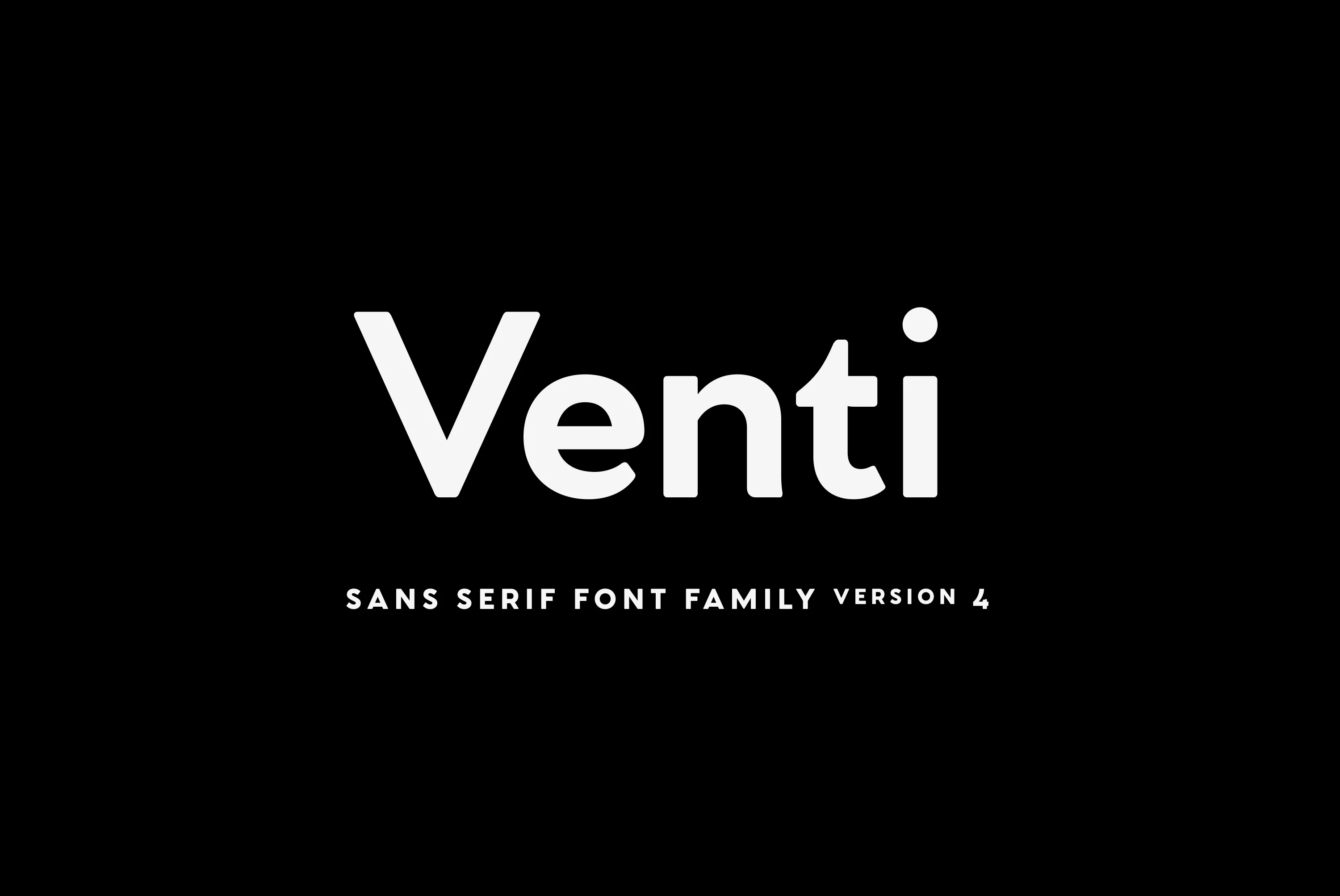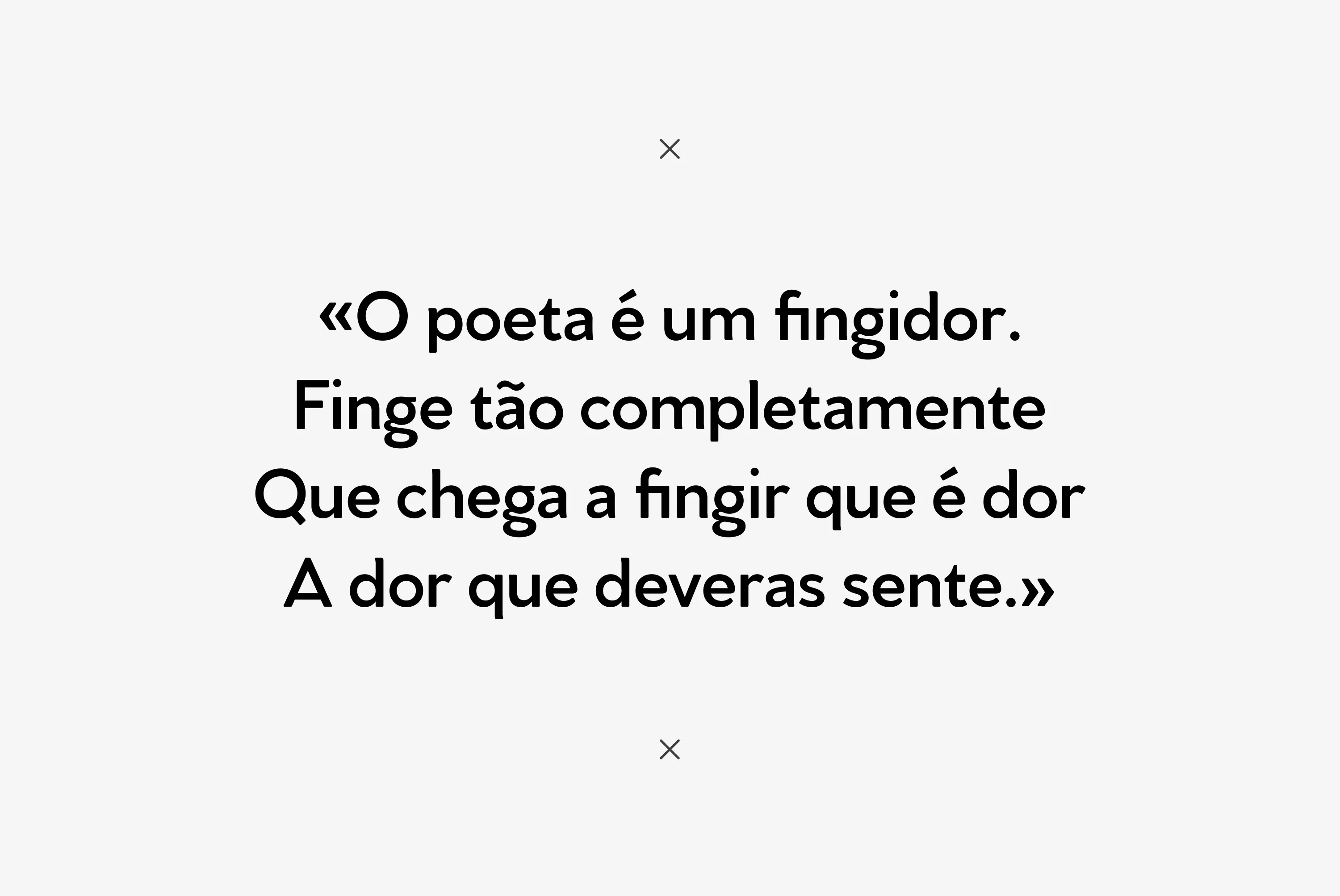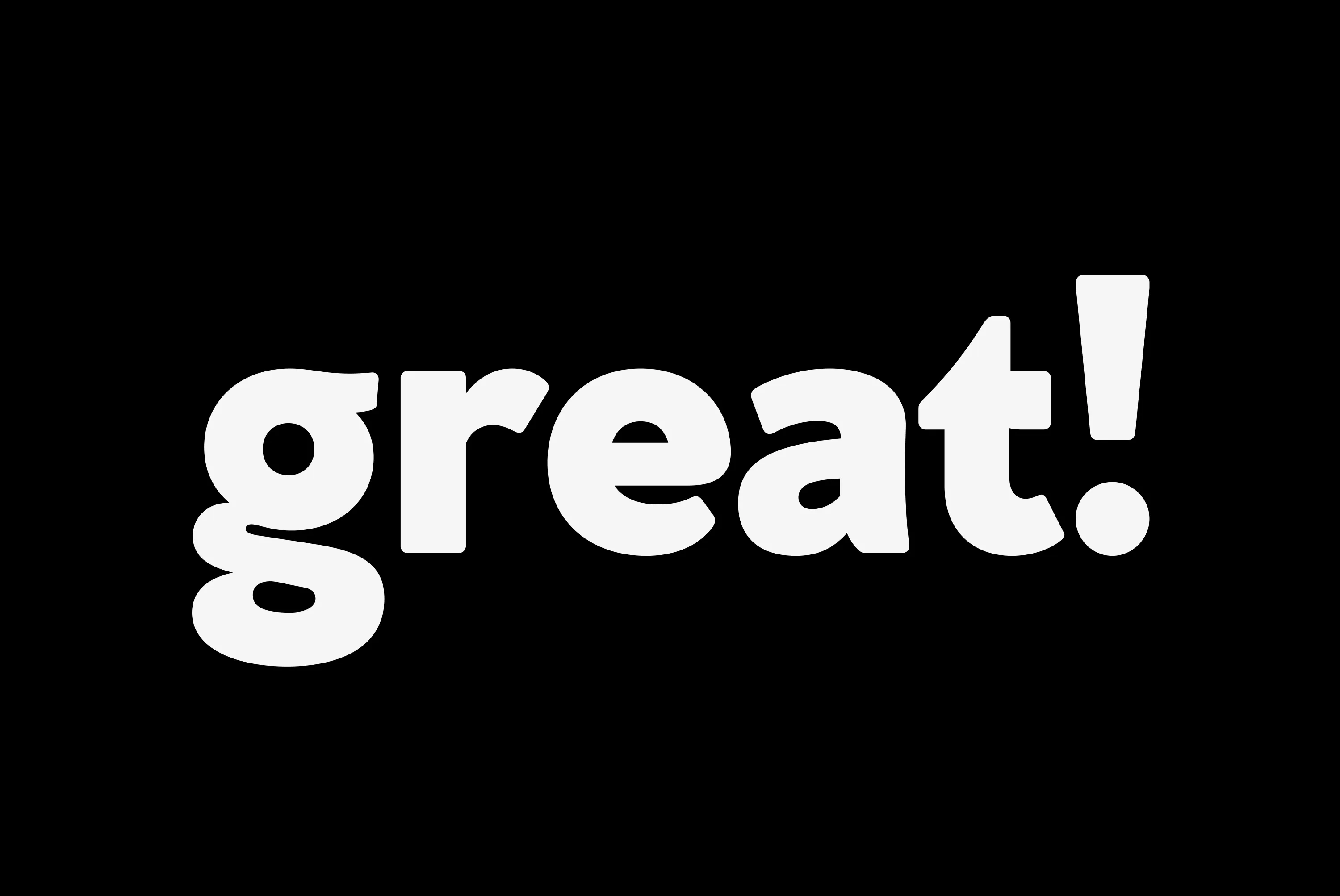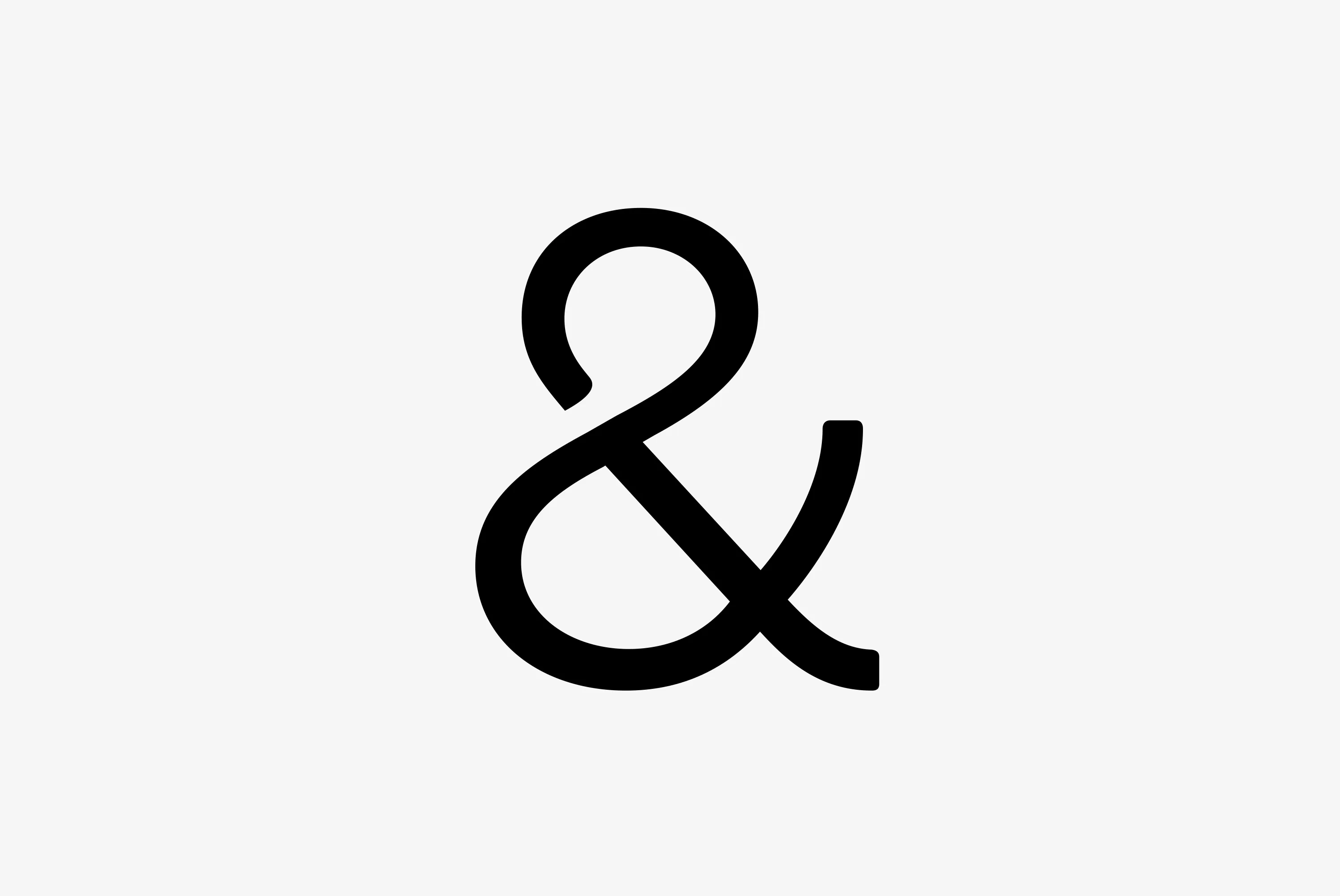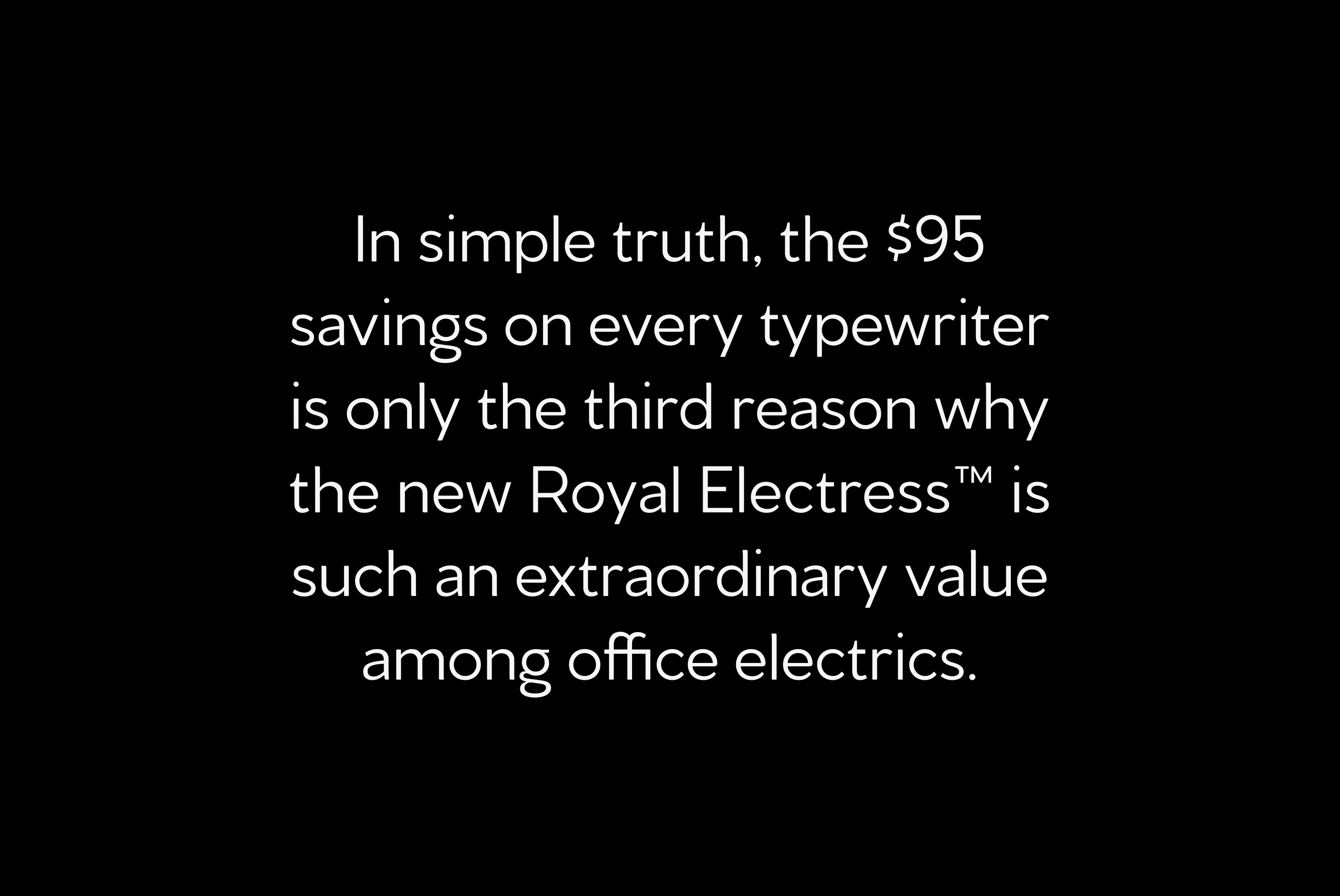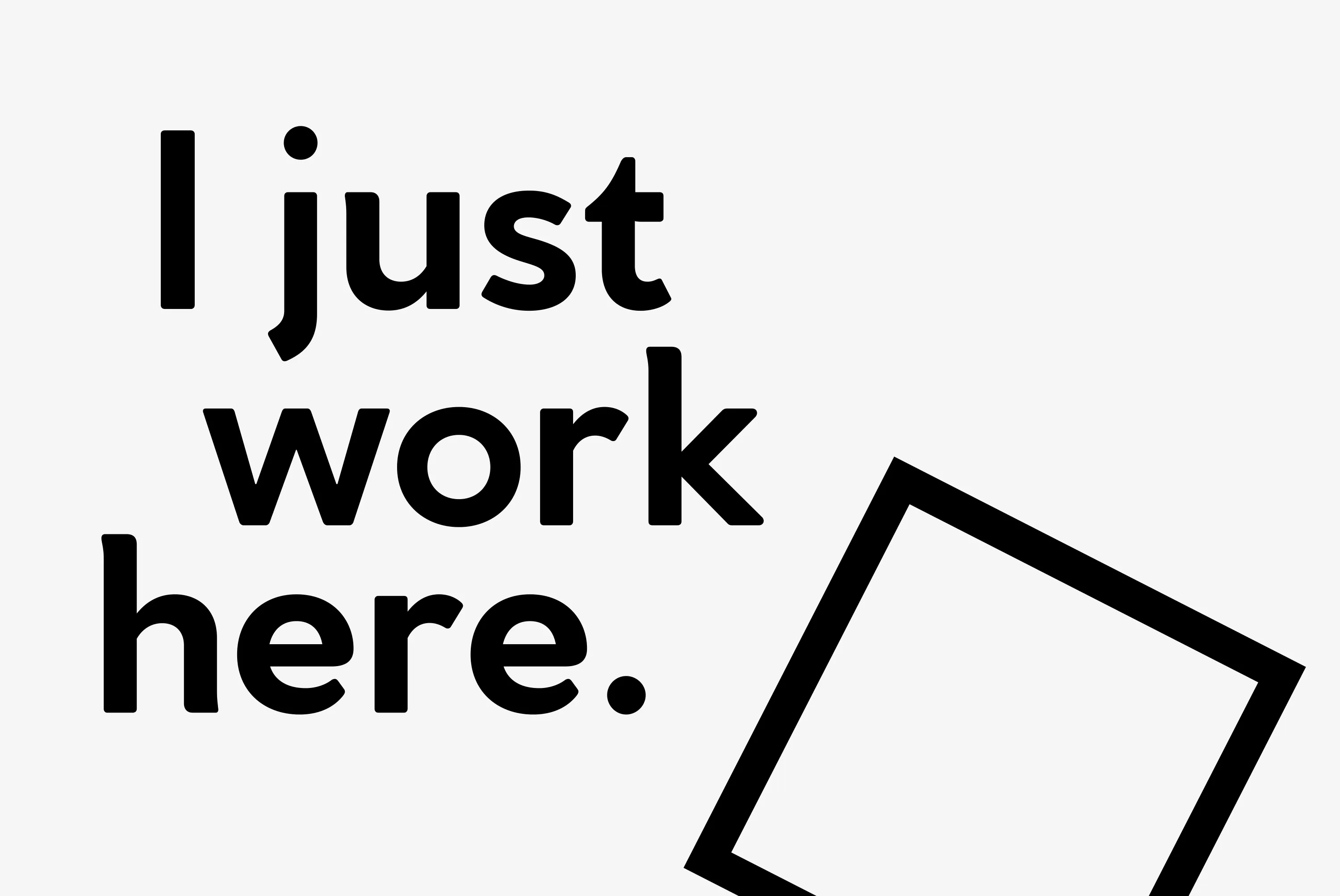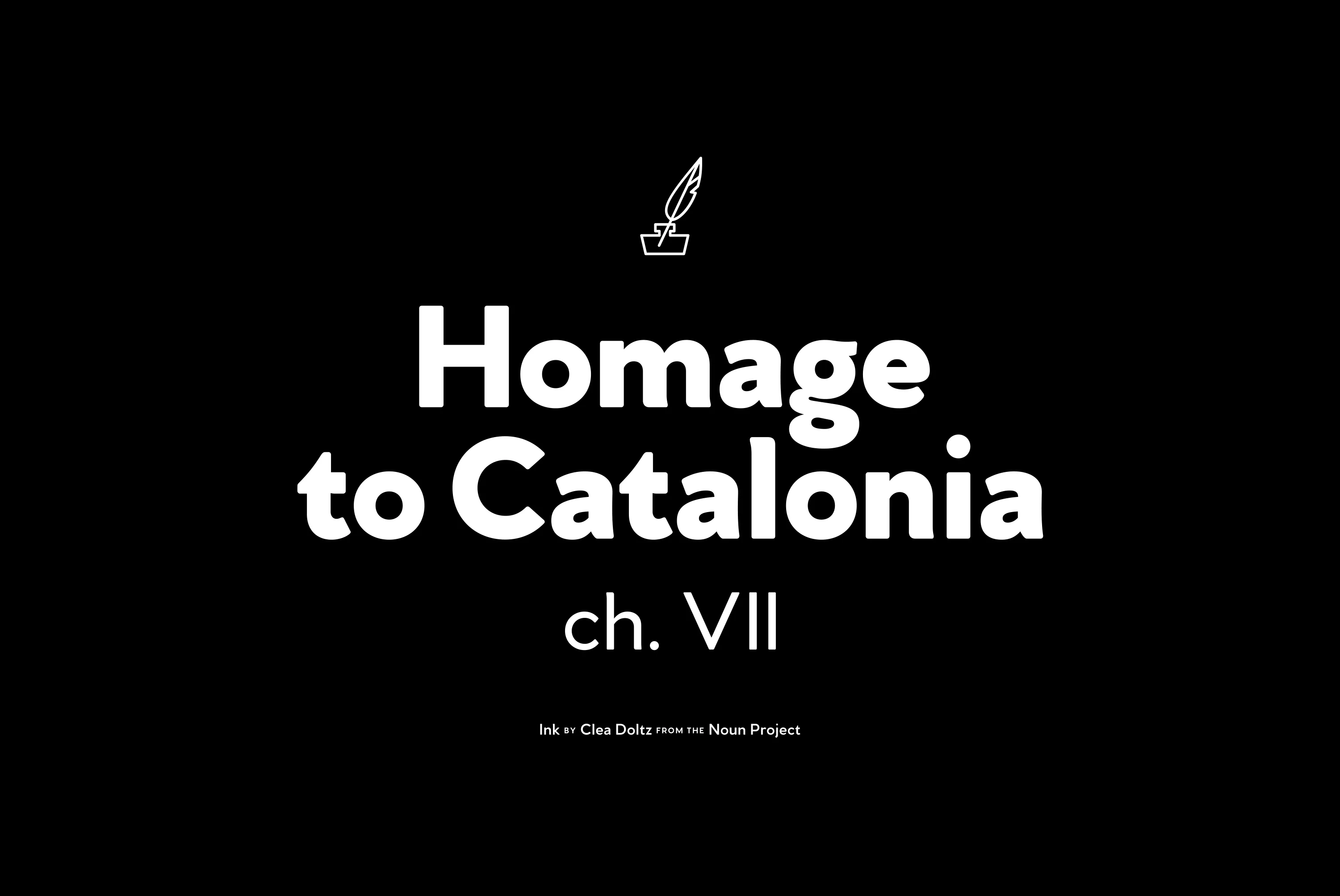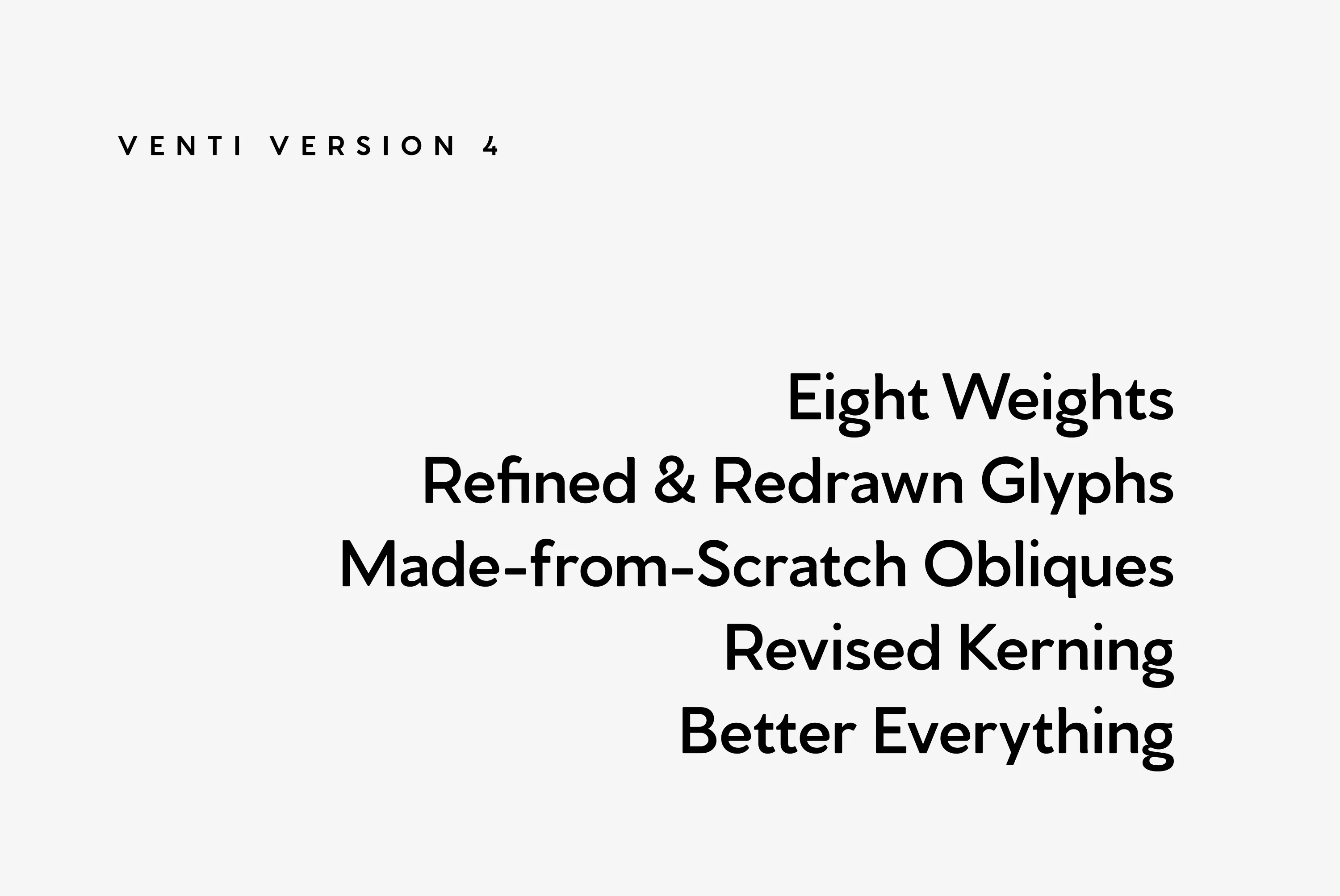
Venti
Venti Fonts
Venti is a geometric font family with a warm, engaging character. Inviting and versatile, Venti’s subtle human overtones are well suited to headlines, logos, and short text.
eight Weights in Latin & Cyrillic Script
Language support includes Belarusian, Bulgarian, Catalan, Chinese Pinyin, Croatian, Czech, Danish, Dutch, English, Filipino, Finnish, French, Fula, German, Hungarian, Indonesian, Italian, Latvian, Macedonian, Malay, Maltese, Norwegian, Polish, Portuguese, Romanian, Russian, Serbian, Slovak, Slovenian, Spanish, Swedish, Turkish, Ukrainian, Uzbek